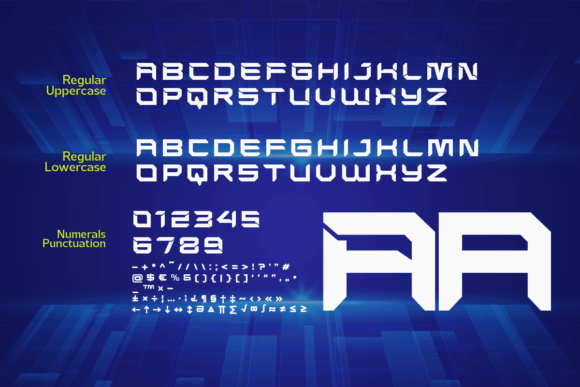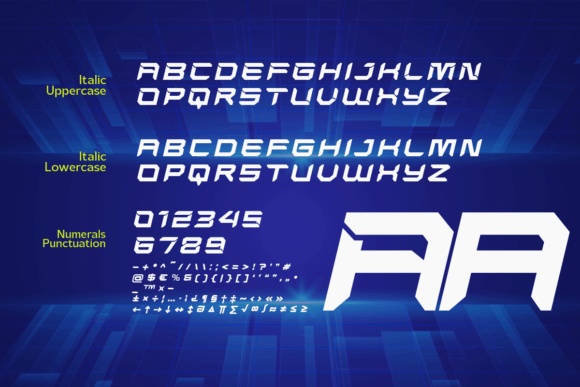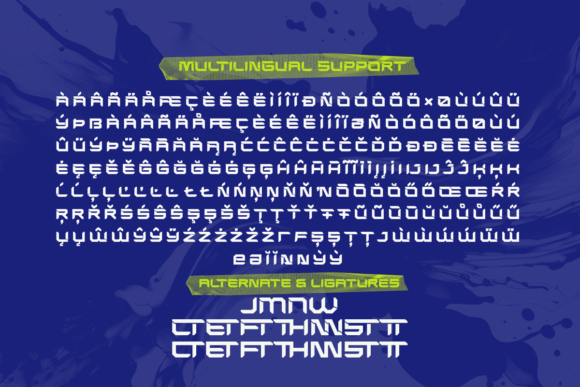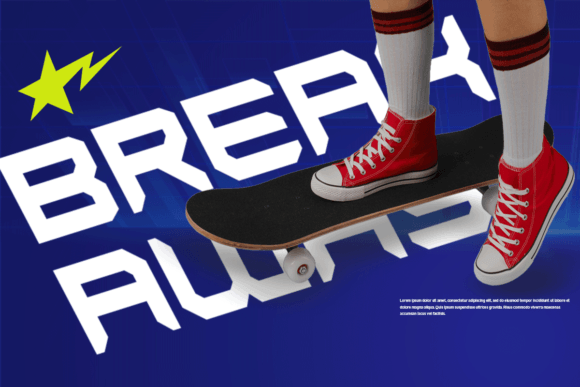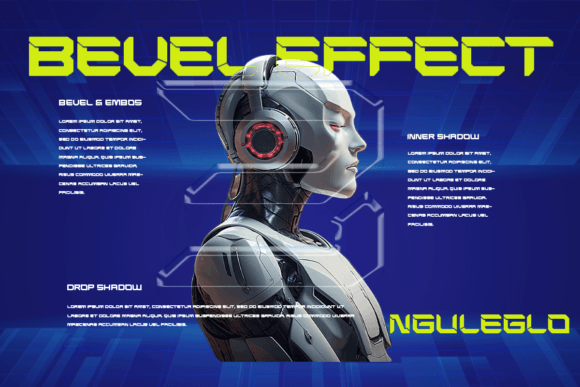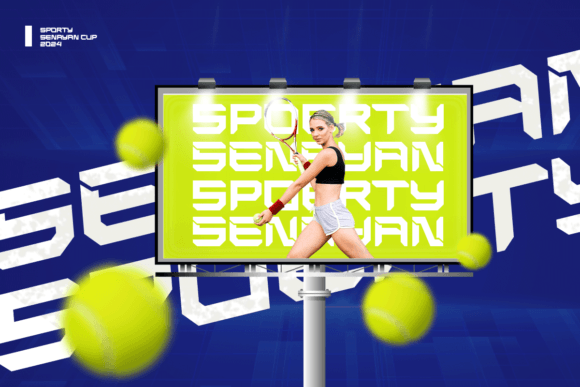
Introduction to Nguleglo Tech Font
You know that moment when a spark of creativity strikes, and you envision a design that’s out of this world? For many designers, that’s exactly what Nguleglo Tech Font is all about – unleashing a world of possibilities on your creative canvas. This sleek, future-forward display font is the perfect tool to lend your projects an air of sophistication and innovation.
Whether you’re crafting a digital horizon for a cutting-edge gaming experience or framing your brand personality with a bold, eye-catching logo, Nguleglo Tech Font is the design resource you need to take your creative project to the next level. Its unique blend of stencil style and solid appeal makes it perfectly suited for diverse applications, from movie posters to free downloads with transparent backgrounds.
What sets Nguleglo Tech Font apart is its versatility and high-quality design. With PUA encoding, accessing all the amazing glyphs and ligatures is a breeze. Whether you’re a seasoned designer or just starting out, this font is sure to be a valuable addition to your design toolkit.
Key Features of Nguleglo Tech Font
- High-quality font design suitable for creative projects, with a modern and sleek aesthetic.
- Includes a comprehensive character set, including uppercase and lowercase letters, numbers, and special characters.
Honest Review: Nguleglo Tech Font
As a designer, I’m always on the lookout for unique and versatile fonts to elevate my creative projects. I recently came across the Nguleglo Tech Font, and I’m excited to share my honest review.
First impressions: the font is sleek and modern, with clean lines and a futuristic feel. I appreciate how the font designers have made it available for free download, which is a huge plus for designers on a budget. The transparent background feature also makes it easy to use in various design contexts.
- ✨ High-quality design that’s perfect for futuristic and tech-related projects
- ✨ Easy to read and understand, even in smaller font sizes
However, I do have some minor quibbles:
- ⚠️ Limited font styles and variations (I’d love to see more options in the future)
- ⚠️ Not ideal for projects that require a lot of text formatting or customization
Overall, I’m impressed with the Nguleglo Tech Font. While it may have some limitations, its unique design and high-quality feel make it a valuable addition to any designer’s toolkit. I’d definitely recommend it for creative projects that require a futuristic or tech-related aesthetic.
The Nguleglo Tech Font is ideal for creating high-quality designs for tech-related projects, such as websites, apps, and software interfaces. It’s also great for creating presentations, documents, and reports that require a professional and modern look.